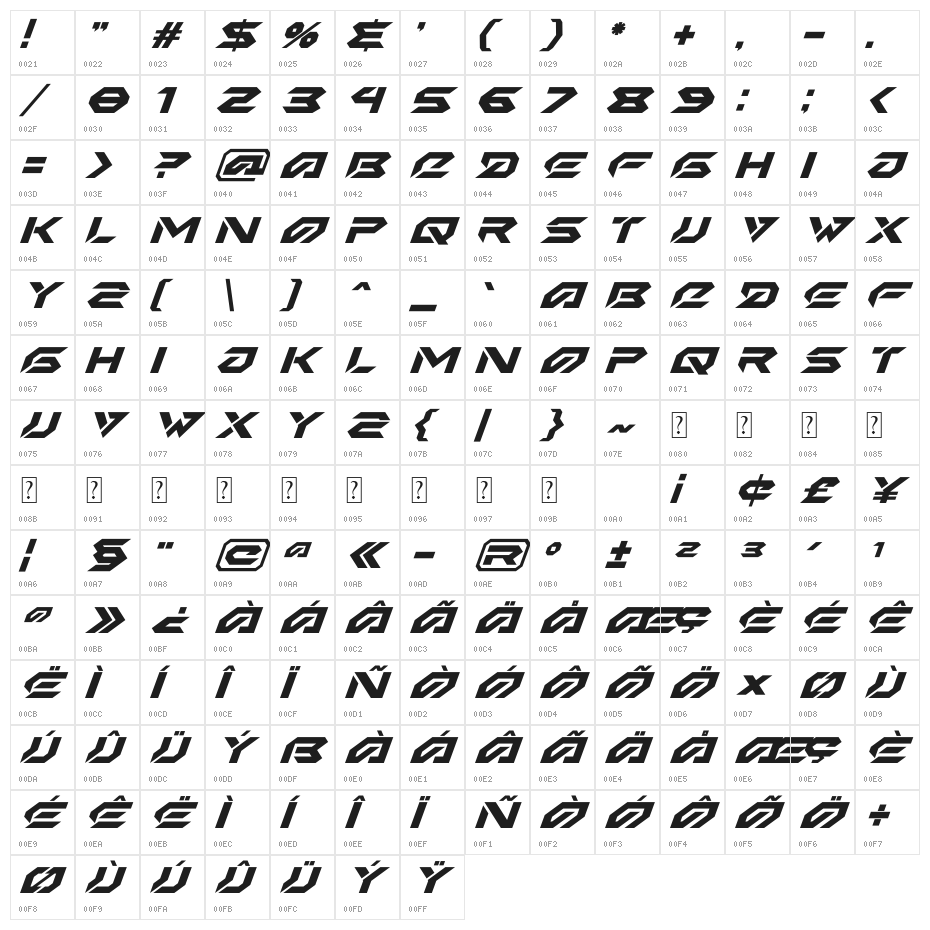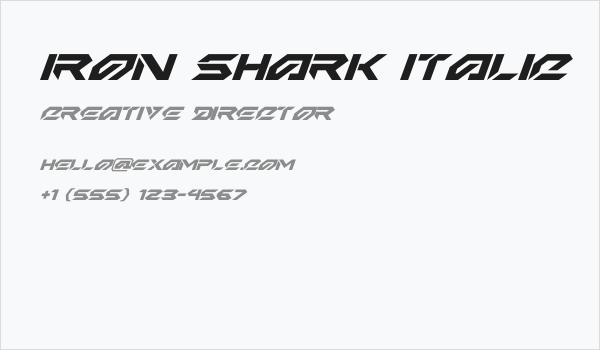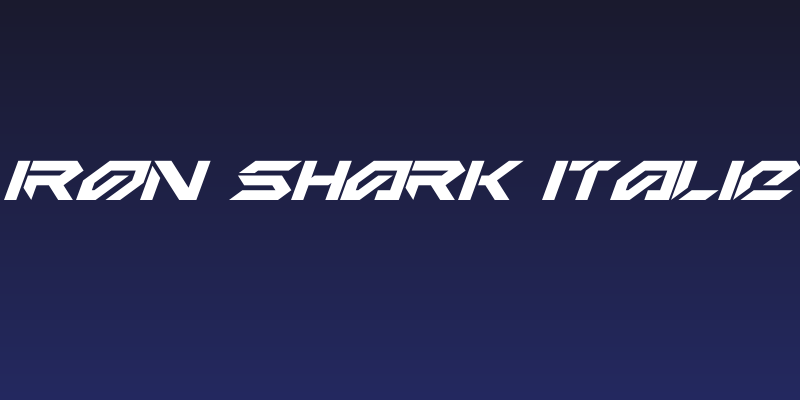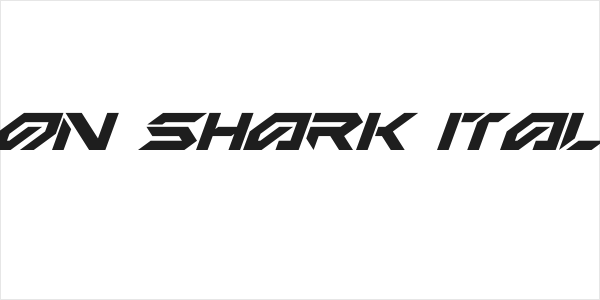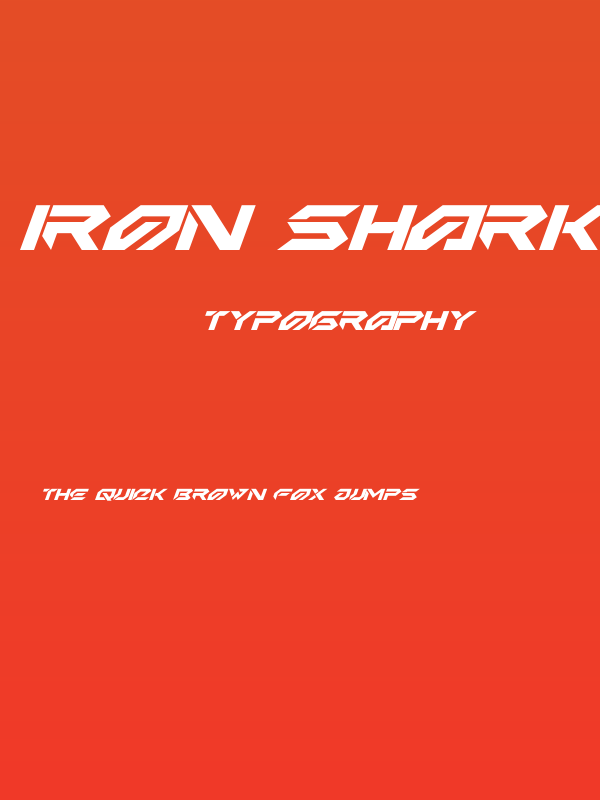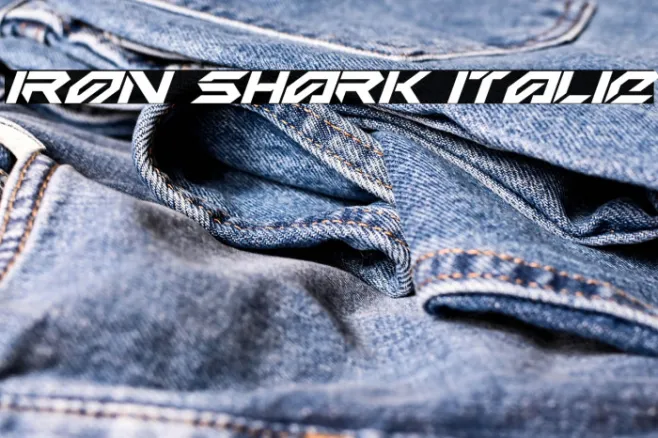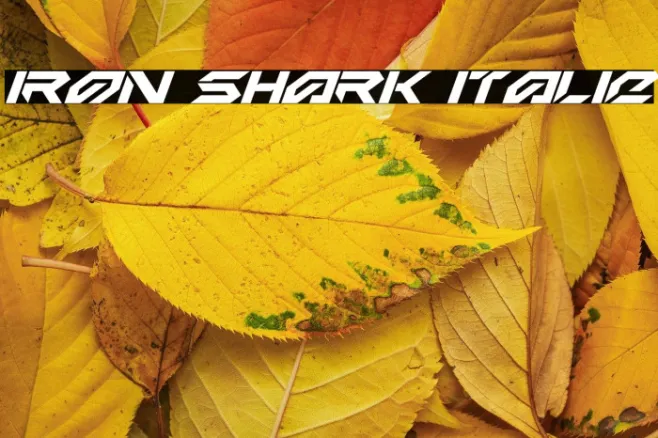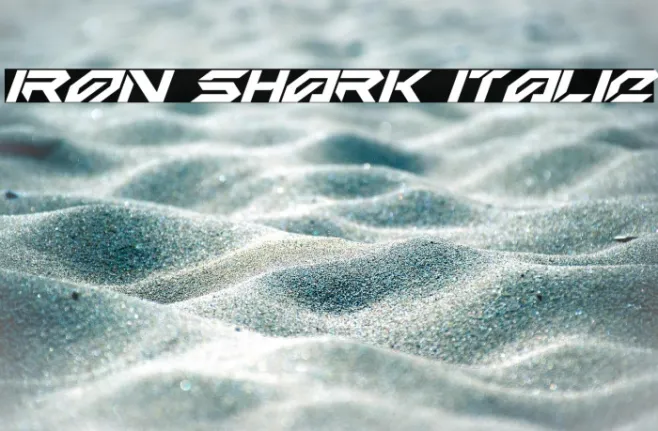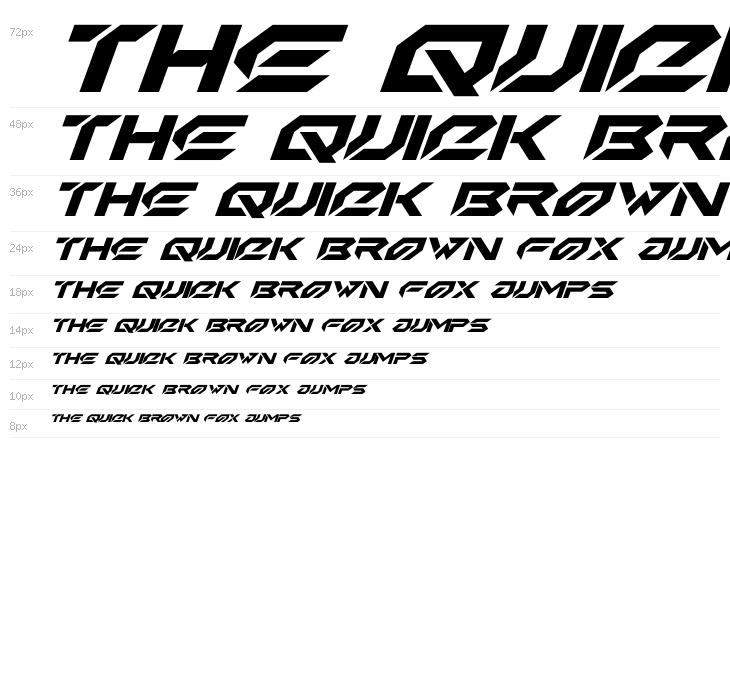
Iron Shark Italic Font
Iron Shark Italic Description
This font features a bold, angular design with a futuristic and aggressive aesthetic. The characters are sharply cut with geometric precision, giving them a dynamic and edgy appearance. The italic slant adds a sense of motion and speed, making it ideal for projects that require a modern and energetic vibe. The uppercase and lowercase letters maintain a consistent style, with the numbers and special characters following suit. The overall look is cohesive and striking, perfect for making a bold statement.
| Proposed Projects | Ideal for sports branding, video game titles, sci-fi movie posters, and tech-related logos. |